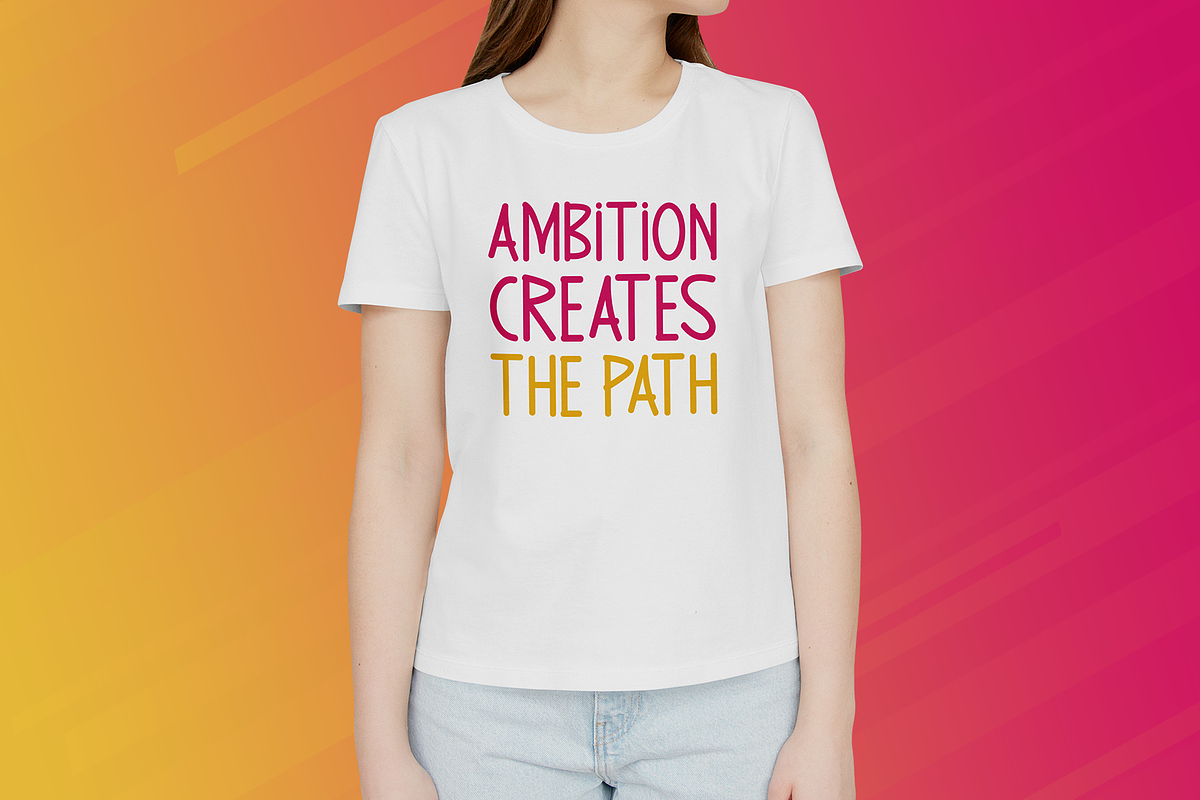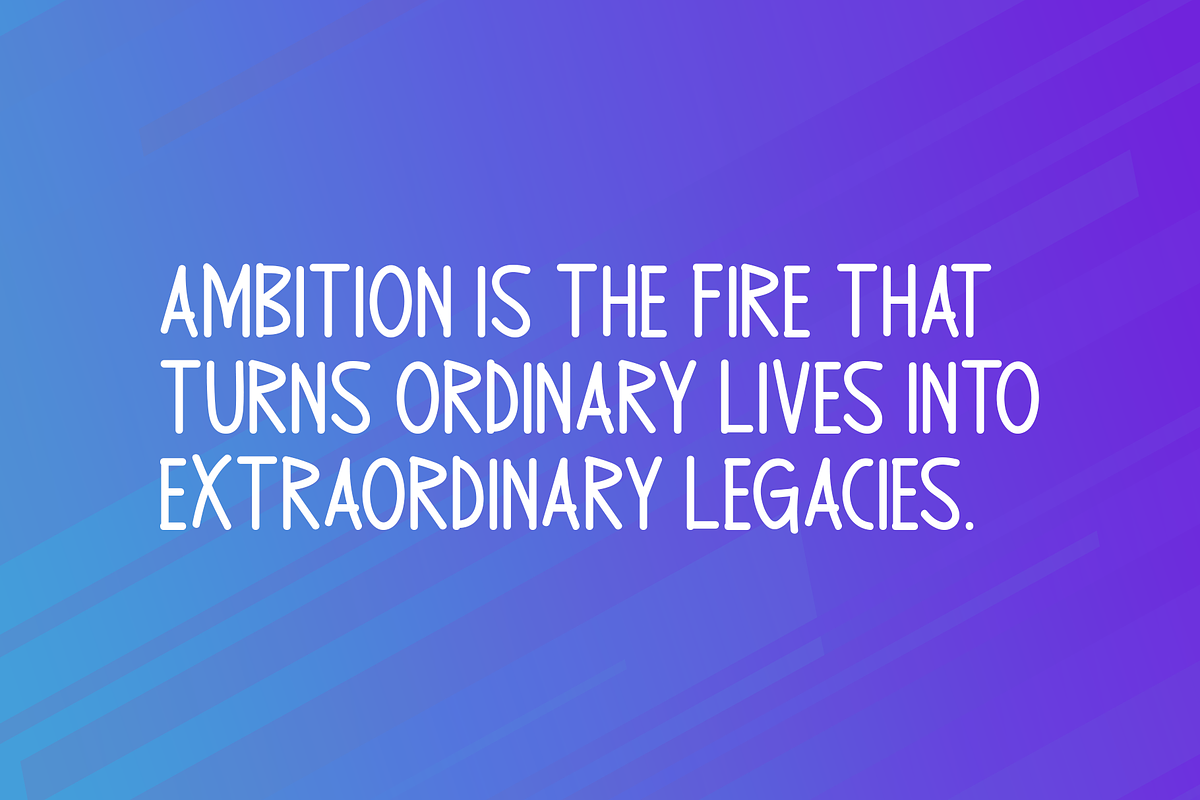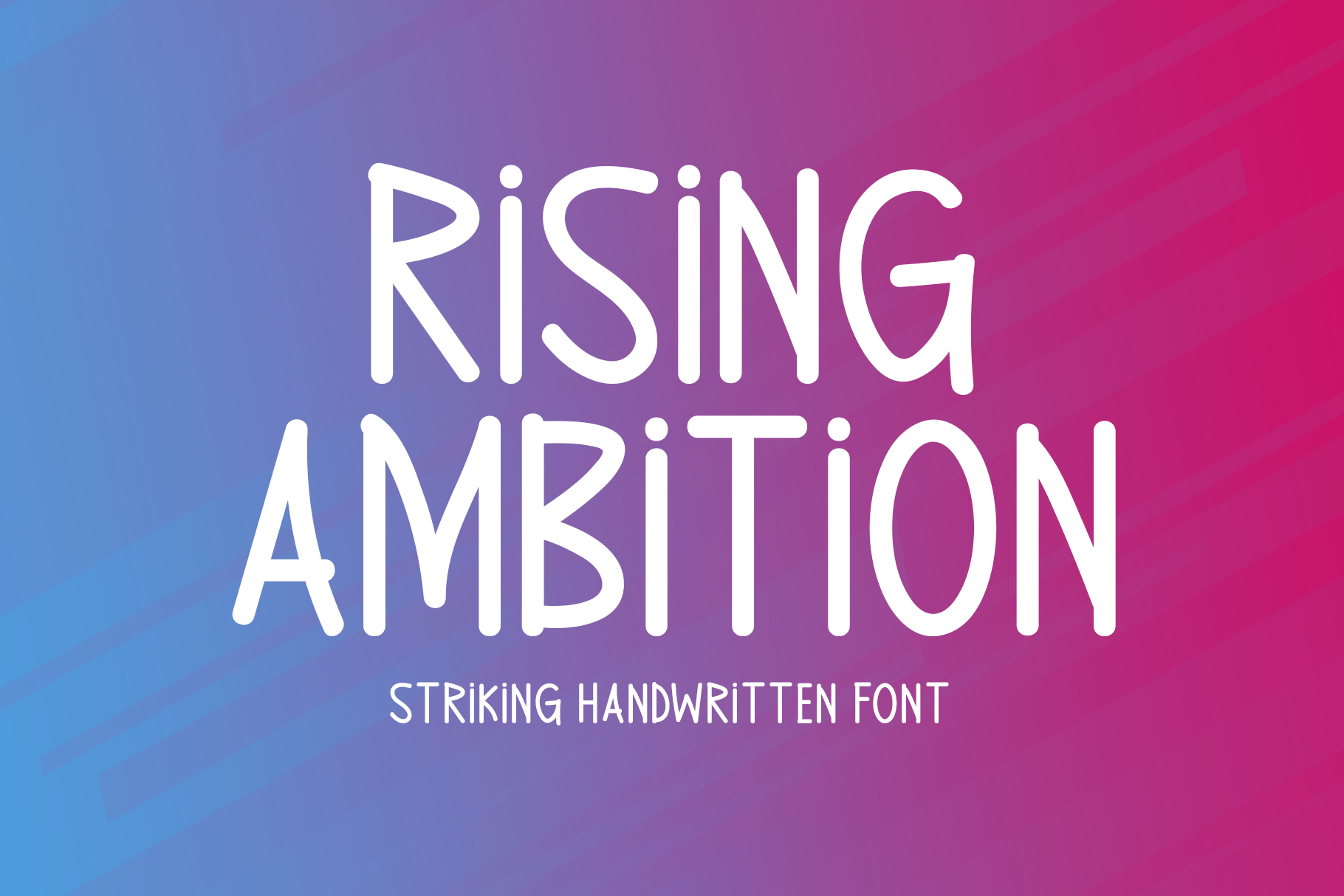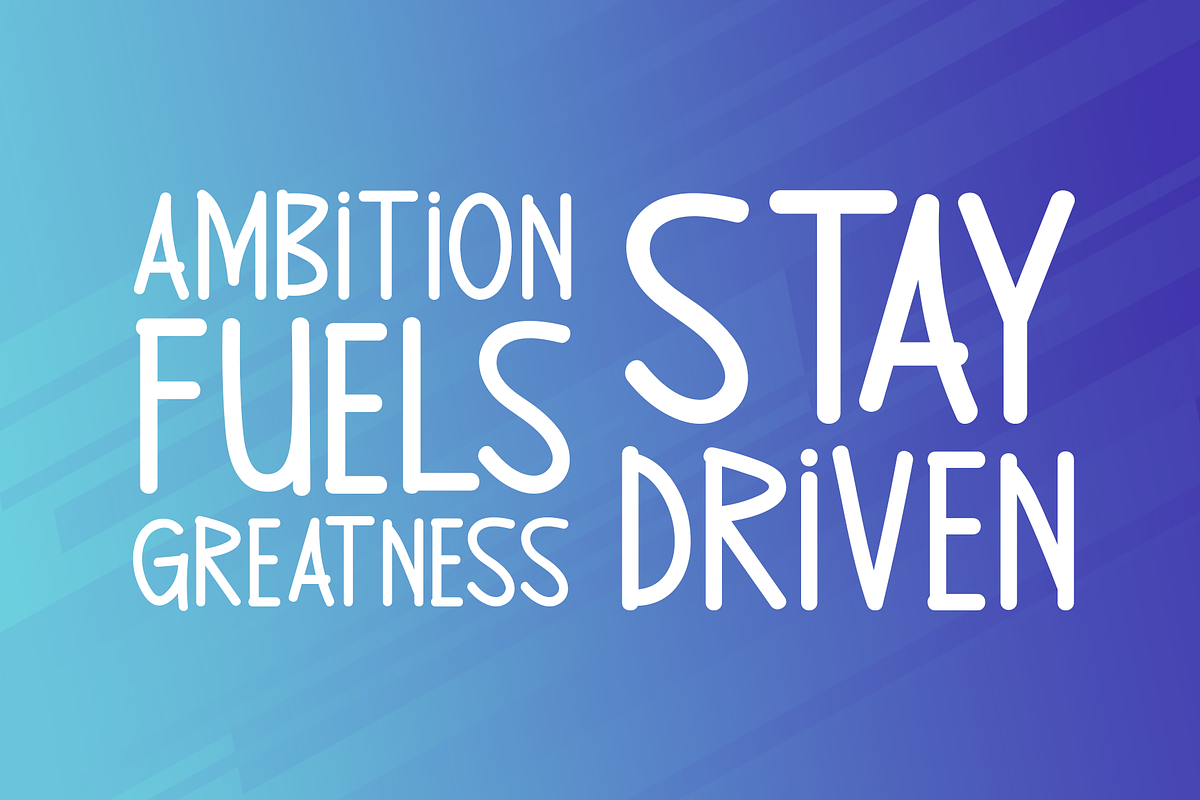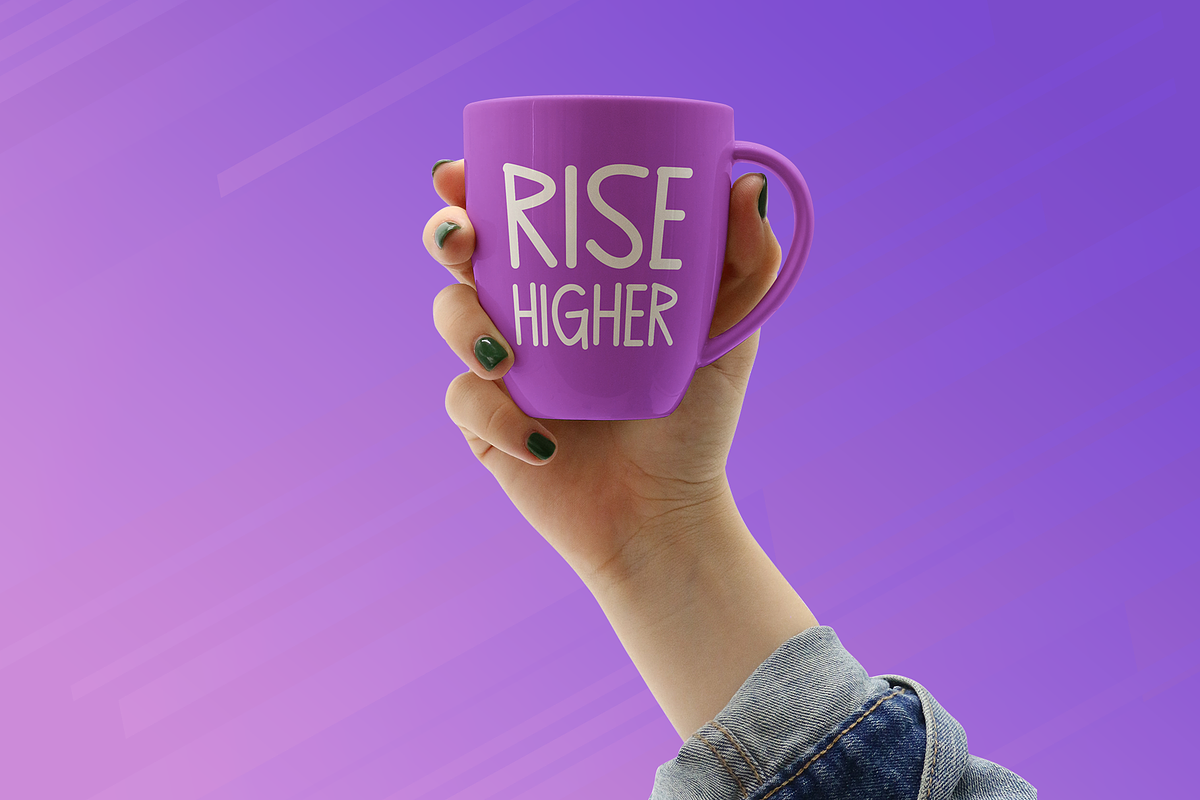
Rising Ambition Typeface
Rising Ambition is a captivating handwritten font designed to bring energy and personality to your creative projects. With its striking, free-flowing style, this font is perfect for enhancing anything from branding and packaging to apparel, web design, promotional materials, posters, album covers, and digital graphics. Whether used in a bold logo or a subtle headline, Rising Ambition adds a touch of originality and handcrafted flair that leaves a lasting impression.